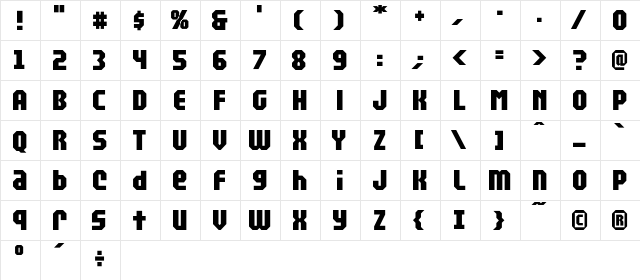
CCArea51Industrial Regular Font Preview
CCArea51Industrial Regular
CCArea51Industrial Regular Font Details
| Foundry | Active Images |
| Designer | John 'JG' Roshell |
Design Context for CCArea51Industrial Typeface
CCArea51Industrial takes a measured approach to typography — its balanced proportions and neutral character make it a reliable workhorse for both digital and print work.